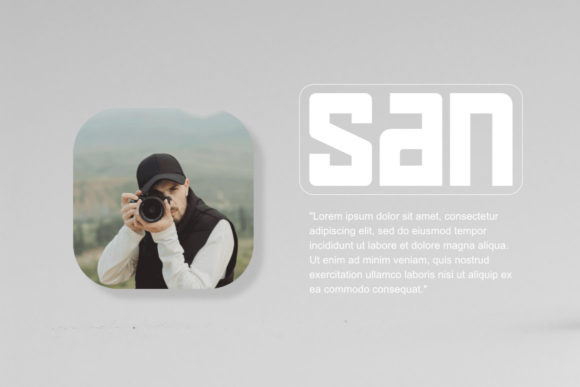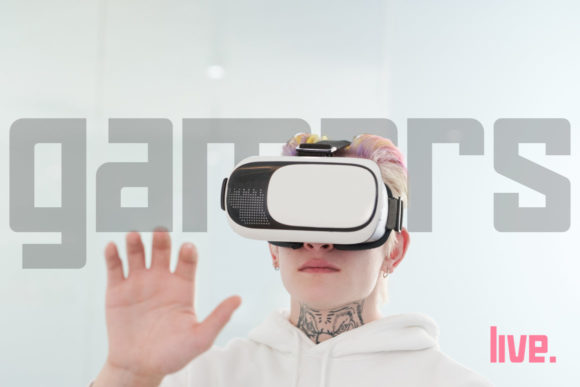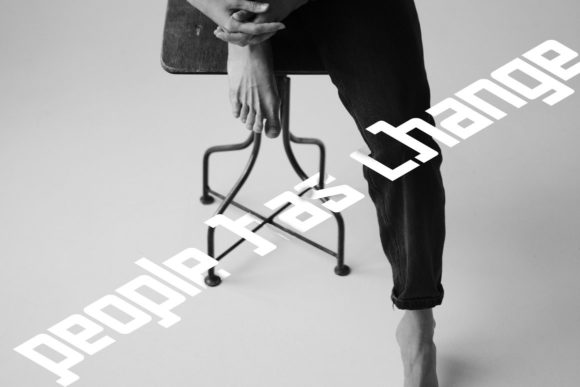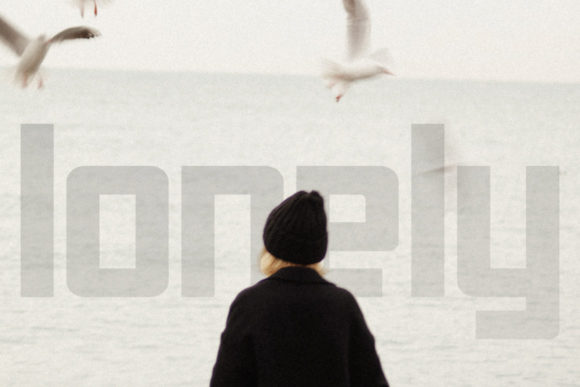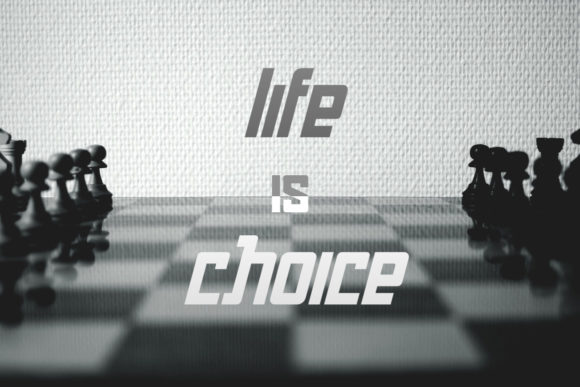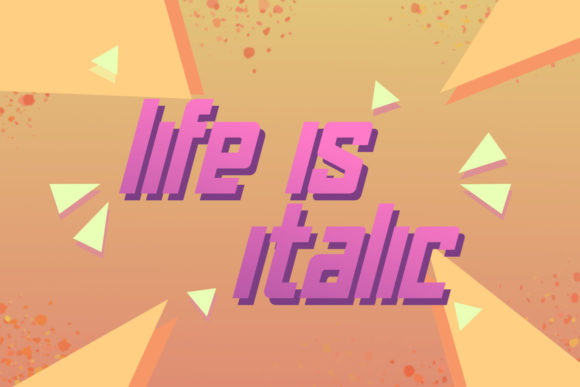
The Perfect Match for Your Next Design Project
Have you ever stared at a blank canvas, struggling to find the perfect font to bring your design to life? You’ve scrolled through font libraries, tried out different styles, and still can’t seem to find the one that captures the essence of your vision. That’s where Banyumas Font comes in – a cool display font that’s sure to elevate your design game.
Banyumas Font is a modern and stylish typeface that’s perfect for branding projects, logo design, and more. Its stiff and modern style gives it a unique edge that’s sure to stand out in a crowded design landscape. Whether you’re creating a logo for an e-sport team or designing a product label, Banyumas Font is the perfect choice for designers who want to add a touch of sophistication and modernity to their work.
Banyumas Font Key Features
- Font Family: Banyumas is a Unicode font designed for the Banyumasan language, which is a variant of the Javanese language spoken in Central Java, Indonesia.
- Font Styles: The font family includes regular, bold, italic, and bold italic styles to cater to various typography needs.
- Character Set: The font supports the Banyumasan language, covering a wide range of characters, including letters, diacritical marks, and punctuation.
- Font Size and Resolution: The font is designed to be legible at various font sizes, with a recommended minimum size of 12 points and a maximum size of 48 points. It is optimized for resolutions up to 300 DPI (dots per inch).
- Unique Characteristics: Banyumas Font features a unique blend of traditional and modern design elements, making it suitable for a wide range of applications, from formal documents to creative projects.
Banyumas Font Review
As a designer, I had the chance to work with the Banyumas Font, and I’d like to share my honest review.
- The Banyumas Font has a unique and distinctive feel, perfect for projects that need a touch of local culture.
- The font’s lines are smooth and well-balanced, making it easy to read, even at smaller font sizes.
- The font family includes a range of weights and styles, giving designers plenty of options to choose from.
- The Banyumas Font may not be as versatile as some other font families, and its unique style may not be suitable for all projects.
- The font’s kerning could be improved, particularly for certain letter combinations.
- The font family may not be as comprehensive as some other font families, with fewer language support options.
Overall, I think the Banyumas Font is a solid choice for designers looking for a unique and culturally relevant font. While it has some limitations, its strengths make it a valuable addition to any designer’s toolkit.